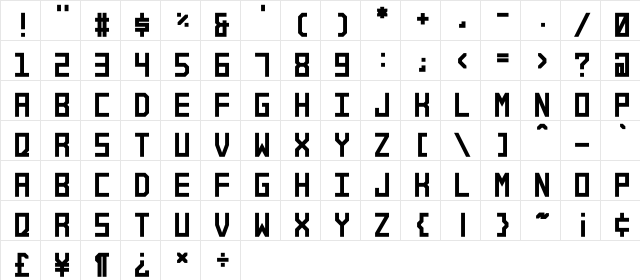
Alforim Regular
Design Context for Alforim Typeface
Alforim is a composed and adaptable typeface that performs quietly and consistently across a wide range of design contexts.